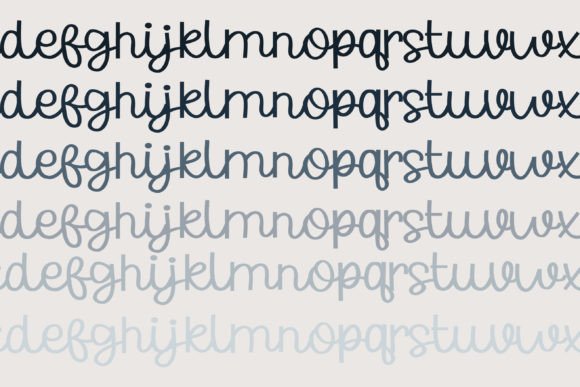
This hand-written font is a casual cursive with a print-like uppercase. Two weights included.
A hand-crafted font is a font that is designed to look like it was written by hand. It is often used for invitations, greeting cards, and other items. Handwritten fonts can be either formal or informal, and they can be used for a variety of purposes.
Some of the characteristics of handwritten fonts include:
The letters are not perfectly uniform in size or shape.
There may be slight variations in the spacing between letters and words.
The font may have a “wiggly” or “squiggly” appearance.
The font may be difficult to read at small sizes.
Handwritten fonts can be a great way to add a casual touch to your designs. They can also be used to create a sense of nostalgia or whimsy. However, it is important to choose a handwritten font that is appropriate for the project you are working on. A formal handwritten font may not be appropriate for a casual invitation, while an informal handwritten font may not be appropriate for a corporate document.